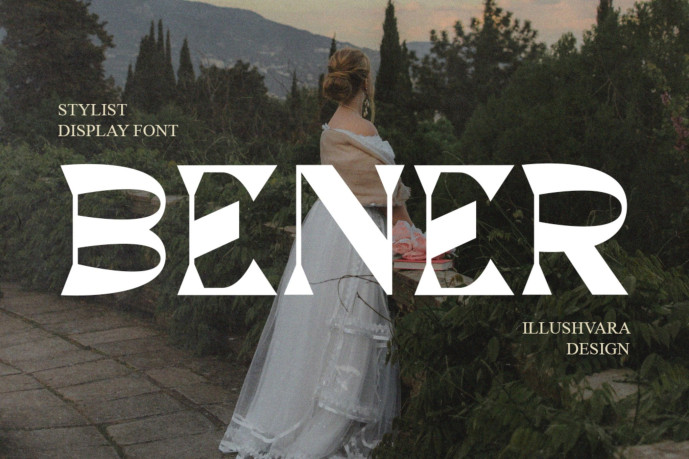
Bener – Decorative Logo Font
Designer: illushvara
Bener – Decorative Logo Font is a decorative display logo font crafted with elegant details, blending subtle classic charm with modern sans-style elements. Its refined shapes make it perfect for wedding branding, luxury perfume names, fashion labels, stylish headings, and corporate identities. Bener delivers a sophisticated, memorable look that elevates any design with a balanced mix of tradition and contemporary flair.